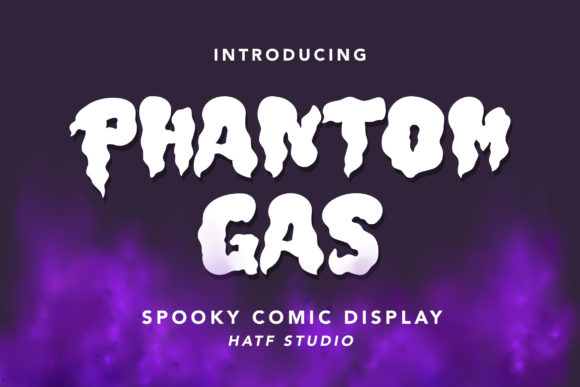
Step into a realm of spine-tingling aesthetics and otherworldly charm with Phantom Gas, a display font that will cast a spell on your Halloween designs. Inspired by the eerie essence of haunted houses and the chilling atmosphere of ghost stories, Phantom Gas is a font that oozesè©ç•° and intrigue. It's the perfect choice for conjuring up designs that evoke a sense of mystery and captivate your audience.
With its meticulously crafted glyphs, Phantom Gas effortlessly captures the essence of the supernatural. Its bold and exaggerated letterforms dance across the page like ghostly apparitions, creating a haunting visual experience that will leave your audience spellbound. Whether you're crafting invitations for a Halloween party, designing posters for a haunted house, or creating eye-catching social media graphics, Phantom Gas will add an unforgettable touch of spookiness to your creations.
Unlock the gateway to a world of endless creative possibilities with Phantom Gas. Let your imagination run wild as you explore the depths of this captivating font. Its versatility extends beyond the realm of Halloween designs, making it an excellent choice for projects ranging from horror-themed websites to spine-chilling movie titles. Unleash your creativity and watch as Phantom Gas transforms your designs into haunting masterpieces.
So, embrace the eerie elegance of Phantom Gas and embark on a design journey that will leave your audience spellbound. Prepare to be mesmerized as this font takes center stage, adding a touch of supernatural charm to your Halloween-inspired designs. Let Phantom Gas be your creative companion, guiding you through a world of ghoulish delights and unforgettable design experiences.